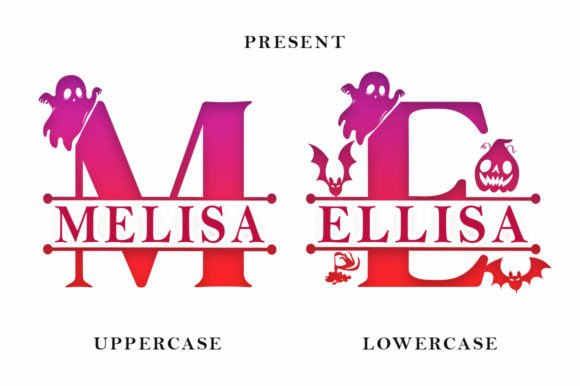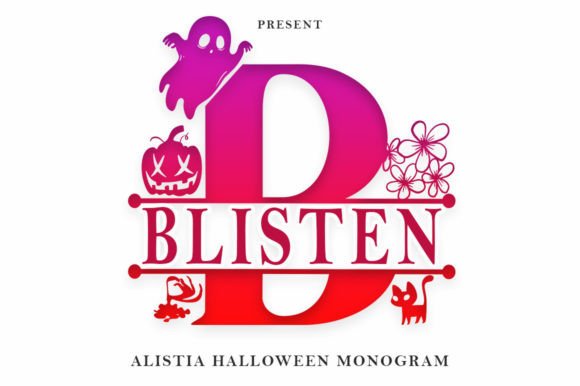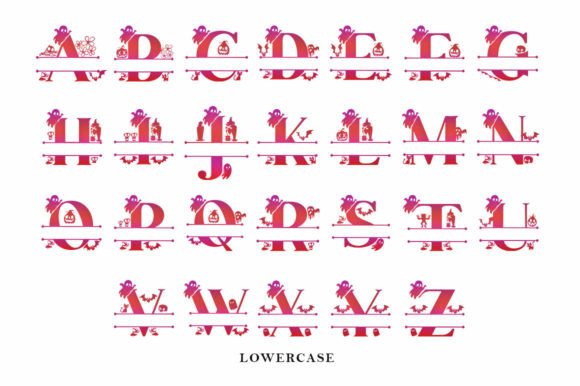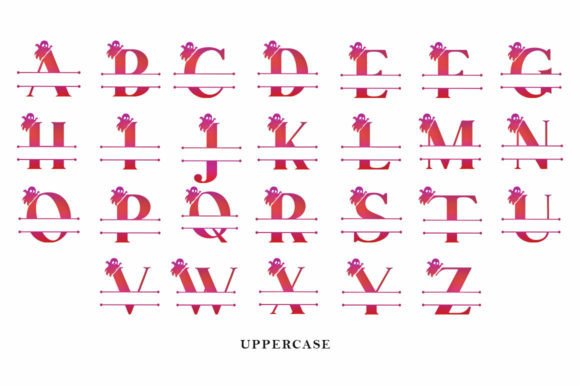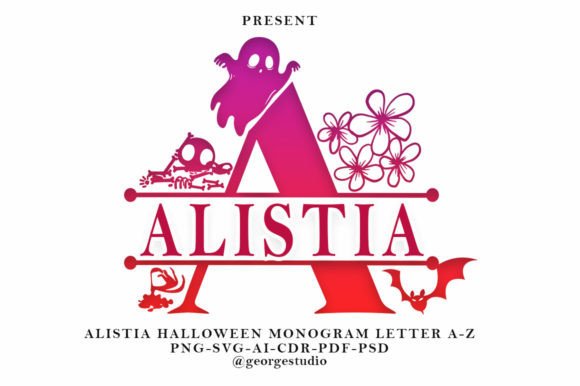
Unleash Your Creativity with Alistia Halloween Monogram Font
I’ve had the chance to play around with Alistia Halloween Monogram, and here’s my honest review:
- ✨ Perfect Halloween vibe: This font has the perfect blend of spooky and stylish. It’s sure to add a touch of Halloween magic to any design.
- ✅ Versatile: From logos to T-shirts, papers to posters, this font can be used for a wide range of projects.
- 🎉 Fun and playful: The font has a great balance of playfulness and sophistication, making it perfect for both kids’ and adults’ designs.
Now, no font is perfect, and Alistia Halloween Monogram has a few quirks:
- 🤔 Limited use outside of Halloween: Let’s face it – this font is designed specifically for Halloween-themed projects. While you could use it for other designs, it might not be the best fit.
- ⚠️ Some glyphs might be a bit tricky to find: The font has a lot of great features, but some users might find it takes a bit of digging to locate specific glyphs or stylistic alternates.
- Experiment with the font’s OpenType features, like glyphs and stylistic alternates, to add some extra spookiness to your design.
The Story Behind Alistia Halloween Monogram
Legend has it (or at least, I’m told) that the creator of Alistia Halloween Monogram was inspired by a haunted house on a dark and stormy night. As they explored the creepy mansion, they stumbled upon an ancient tome filled with mysterious symbols and glyphs. These eerie markings sparked the idea for Alistia Halloween Monogram – a font that would bring a touch of Halloween magic to designs everywhere.
Q: What type of projects is Alistia Halloween Monogram best suited for?
A: Alistia Halloween Monogram is perfect for Halloween-themed projects, such as logos, T-shirts, papers, posters, and more.